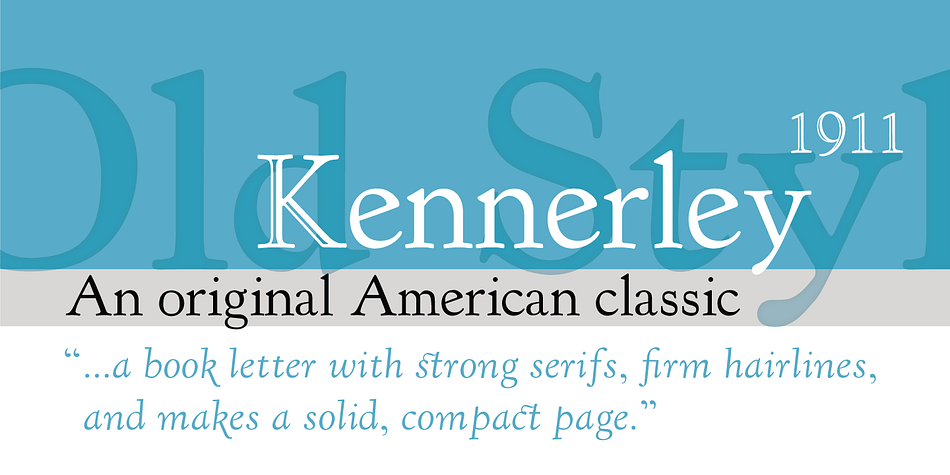
Designed by Frederic W. Goudy and Paul Hunt, LTC Kennerley is a display serif and serif font family. This typeface has nine styles and was published by P22 Type Foundry.
Kennerley Old Style was designed by Goudy for publisher Mitchell Kennerley in 1911 . Goudy described it as a “book letter with strong serifs, firm hairlines, and makes a solid, compact page.” Considered one of Goudy’s best text faces, Kennerley is considered an original American classic as it is not based on historical type designs.